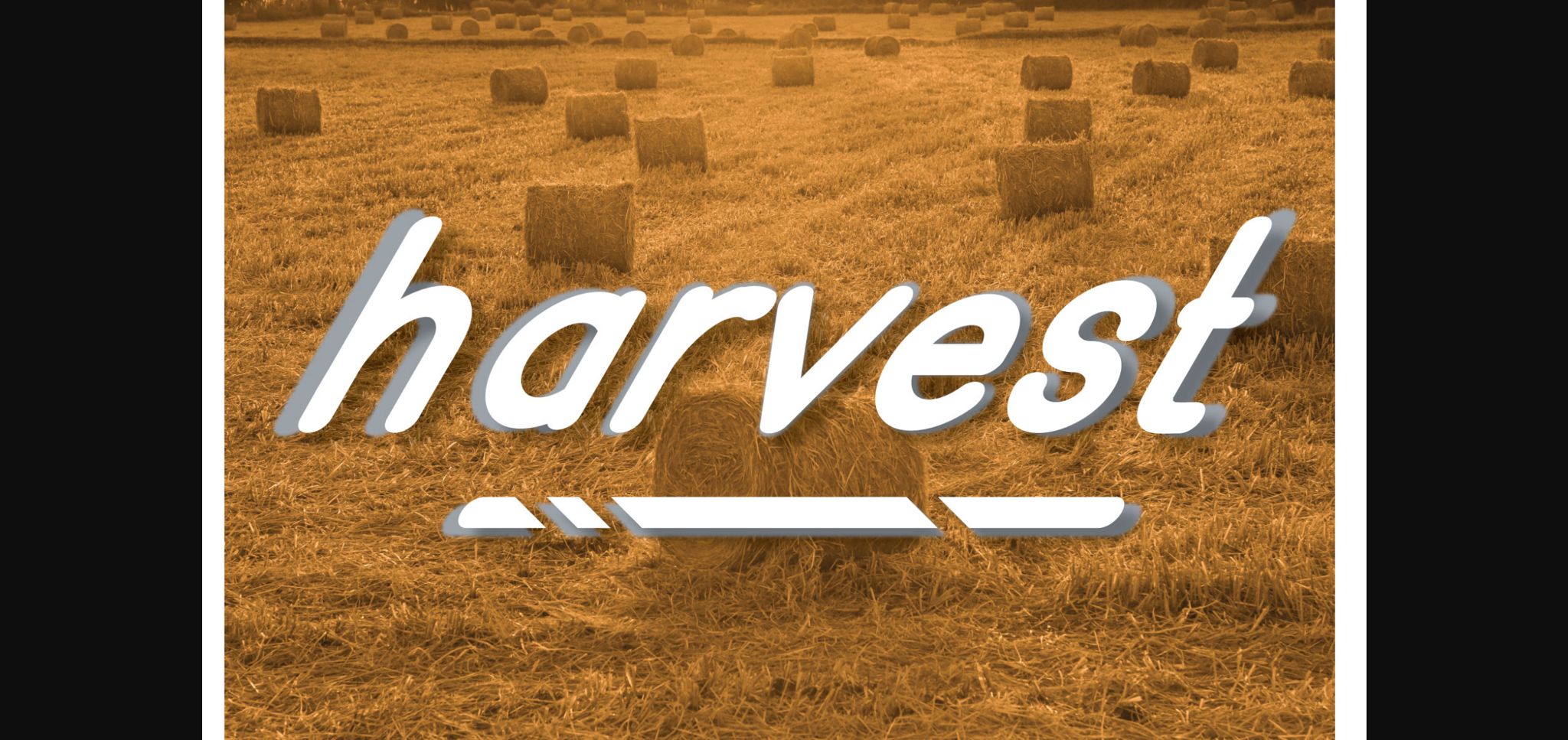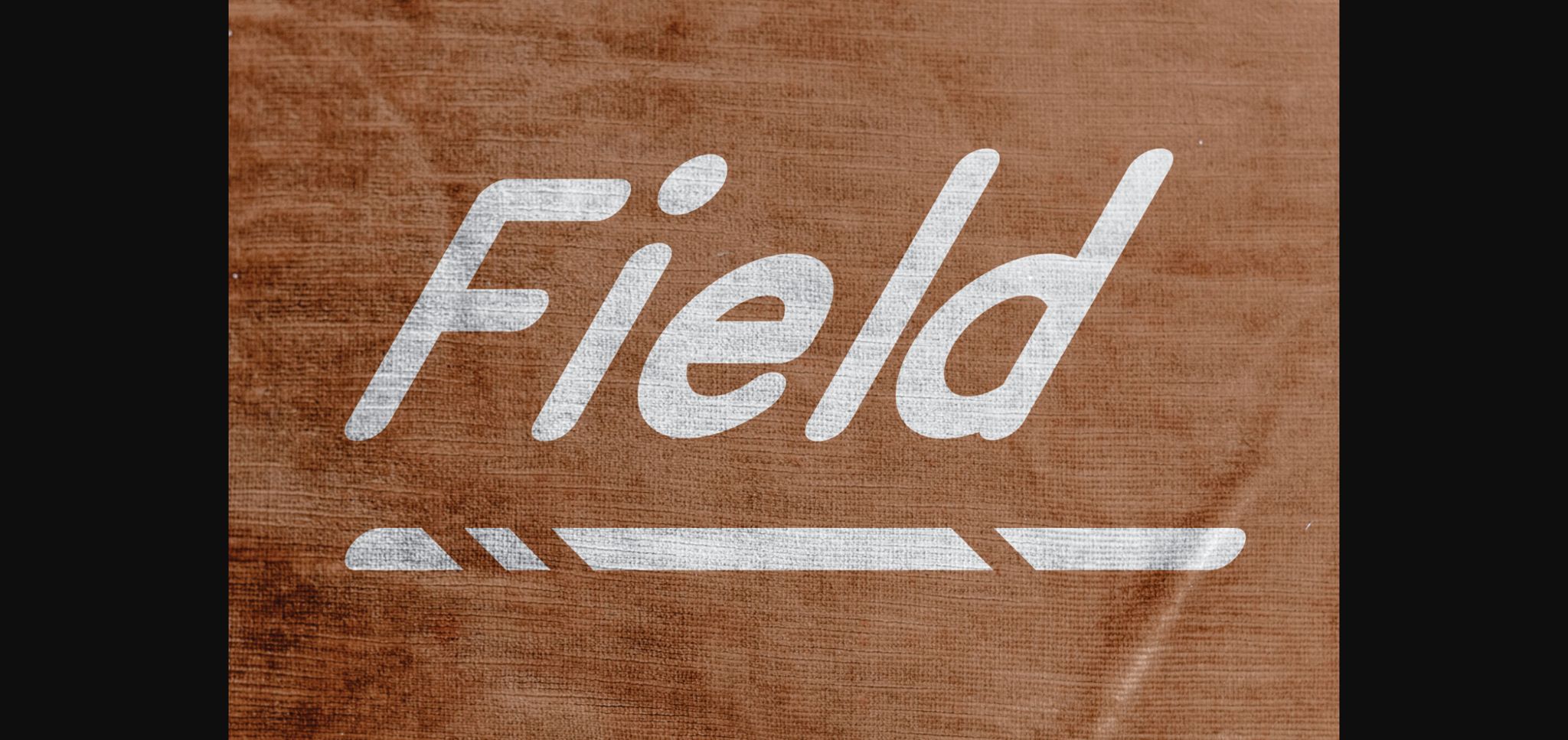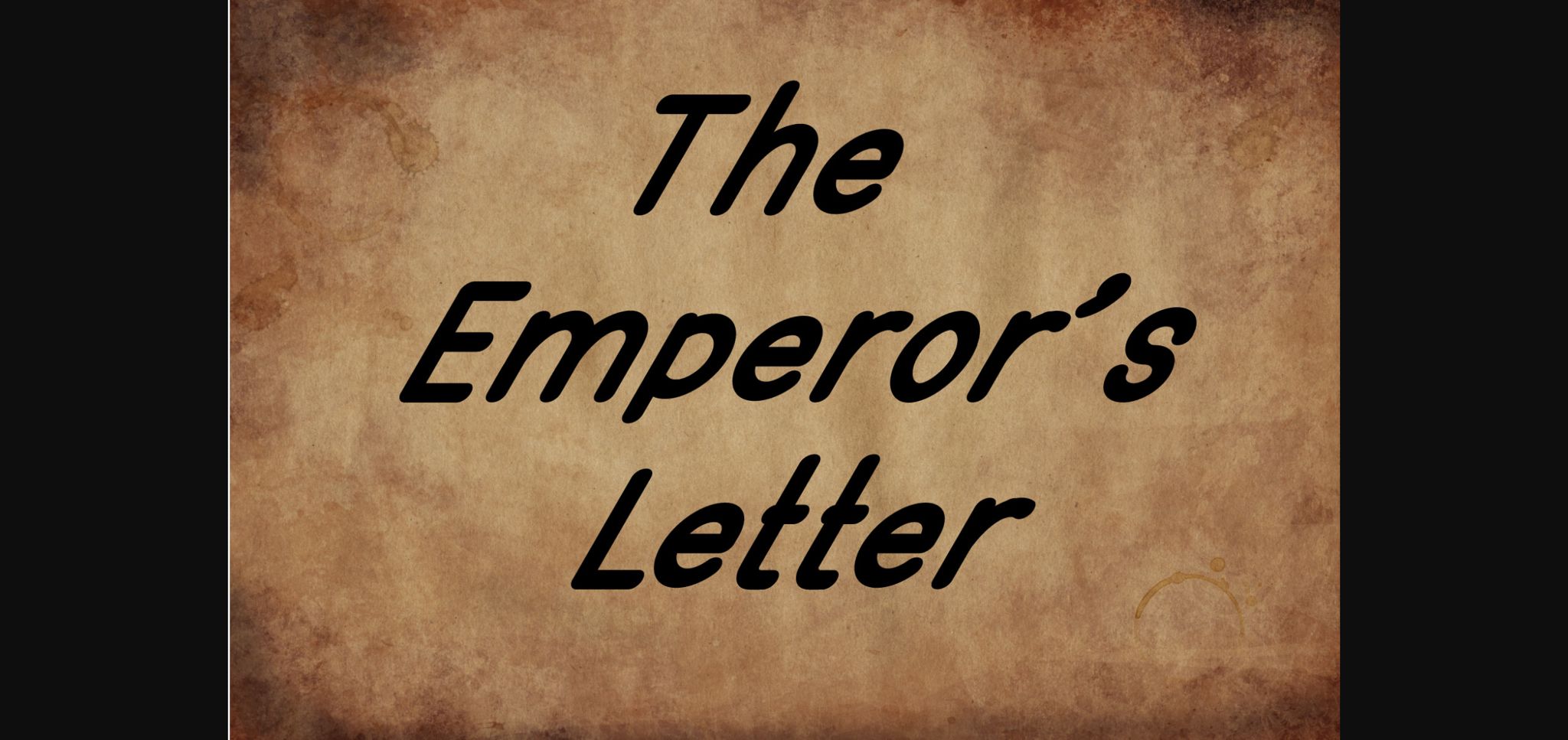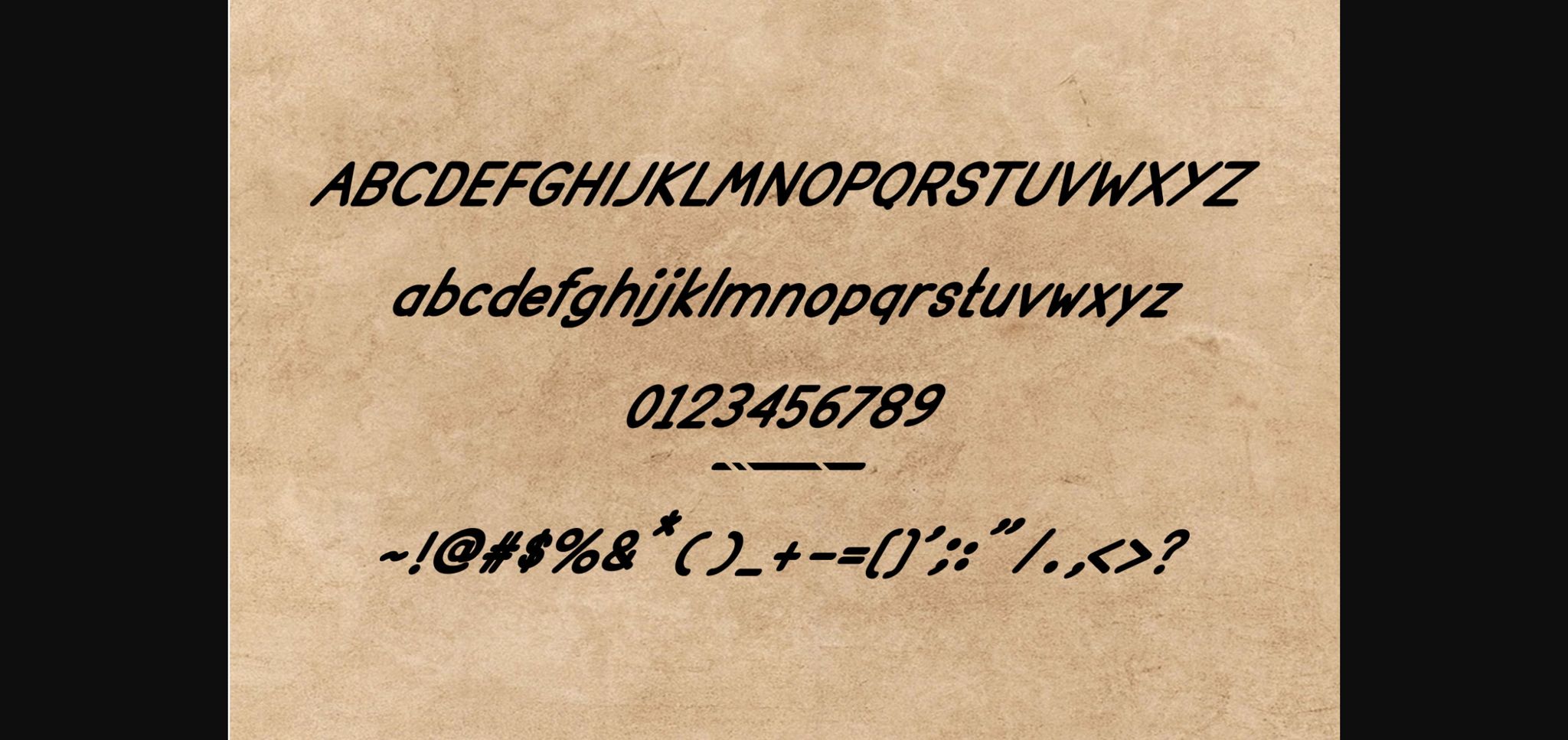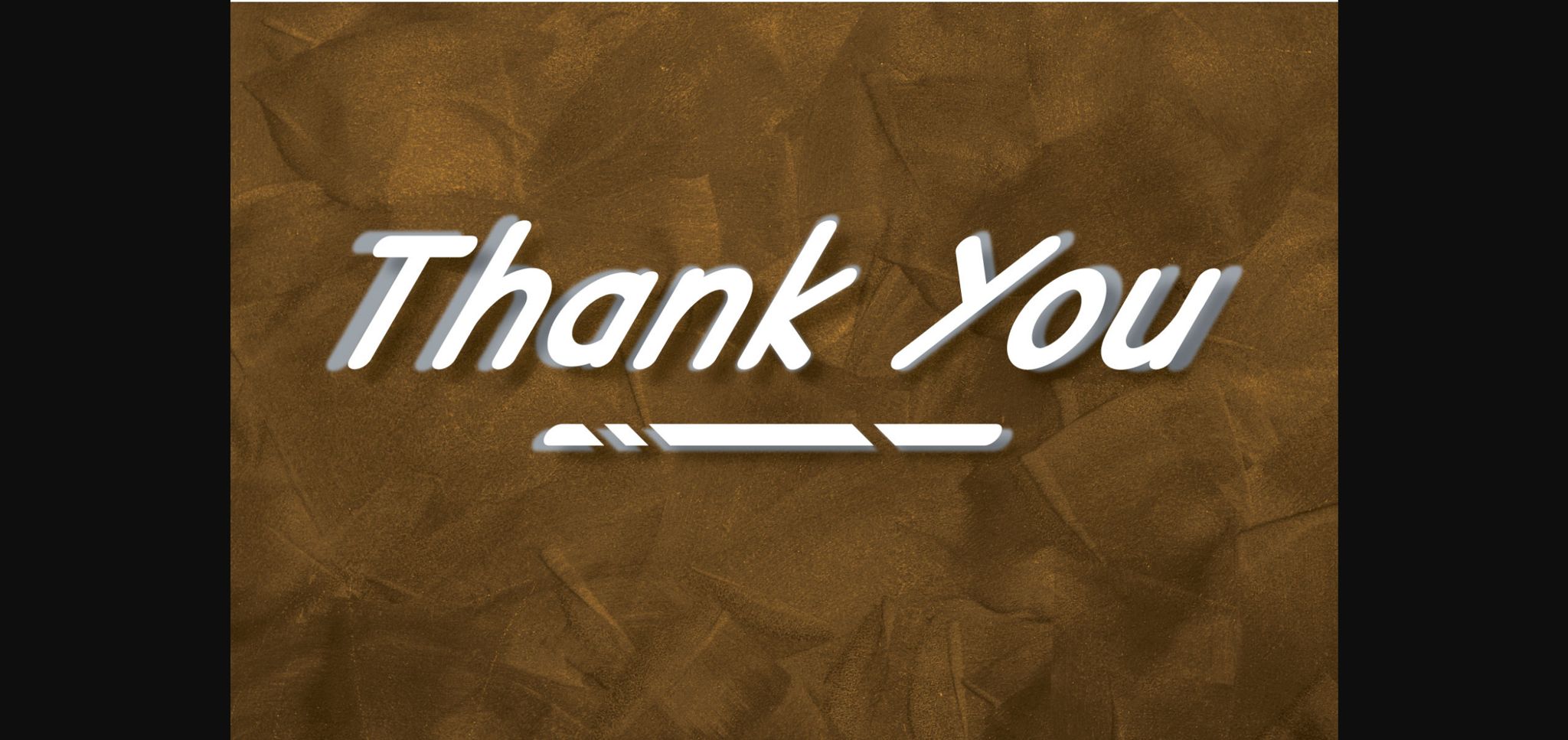
Harvest is a simple, italic, sans serif font. It can easily be matched to an incredibly large set of projects, so add it to your creative ideas and notice how it makes them stand out!